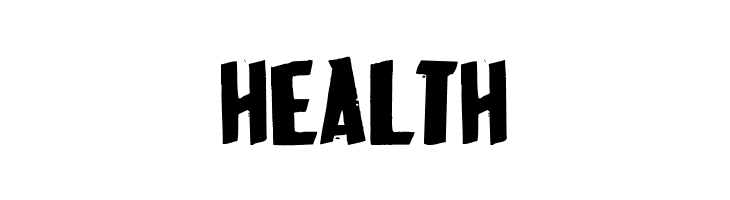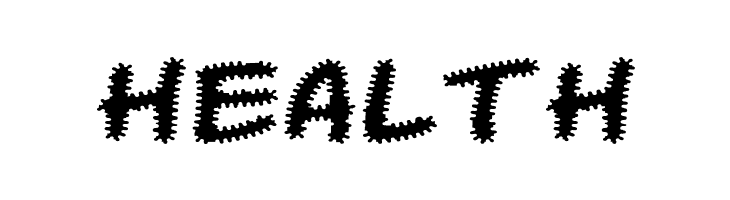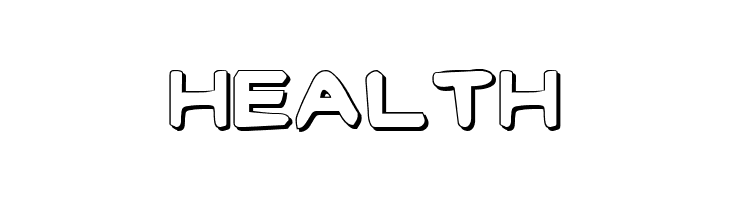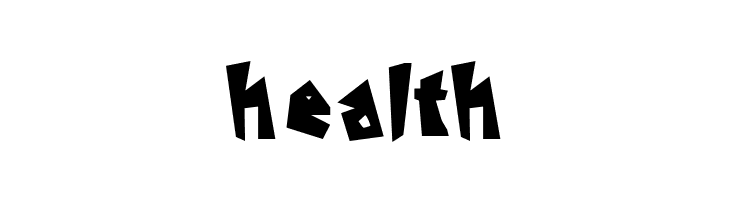
A decorative font with characters emerging from champagne bottles, perfect for festive designs.
A decorative font with skiing-themed illustrations for each character.
A playful dingbat font with child-themed illustrations and candle-styled numbers.
A bold, cinematic font with characters inside clapperboard frames.
A whimsical dingbat font with tea-themed illustrations.
A playful collection of illustrated symbols with a hand-drawn, cartoonish style.
A playful dingbat font with school-themed icons.
A playful, crow-themed decorative font with cartoonish characters.
A bold, 3D font with flame accents and a playful, dynamic style.
A decorative font with hockey-themed icons and illustrations.
A playful, birthday-themed decorative font with numbers adorned with festive elements.
A festive, decorative font with New Year's themed illustrations.
A decorative font with a playful fishing theme, featuring bold letters integrated with fishing elements.
A decorative font featuring snowboarder illustrations for dynamic designs.
A bold, dynamic font with a three-dimensional effect and a sense of motion.
A bold, hand-drawn font with an energetic and dynamic style.
A bold, brush-style font with a dynamic, adventurous feel.
A bold, italic, and geometric typeface with a modern flair.
A bold, dynamic font with angular cuts and a sense of motion.
A detailed fantasy-themed dingbat font with medieval and mythical symbols.
A bold, expanded, and italicized font with a futuristic and sporty style.
A bold, decorative font with a tie-themed design and distressed texture.
A bold, rounded font with integrated awareness ribbons in each letter.
A bold, jagged font with an edgy, brush-like appearance.
Office-themed decorative icon font with bold, high-contrast glyphs.
A whimsical decorative font with cartoonish mouse and bat faces as characters.
A bold, decorative font styled like birthday candles, perfect for festive themes.
Iconic pictogram font with commodity and household object silhouettes.
A bold, decorative font with dynamic radiating lines on each character.
A bold, jagged font with a dynamic, hand-drawn appearance.
A whimsical and decorative font featuring a peanut character in various poses.
A bold, flame-inspired decorative font with dynamic, jagged edges.
A bold, decorative font with intricate patterns and a festive, carnival-inspired style.